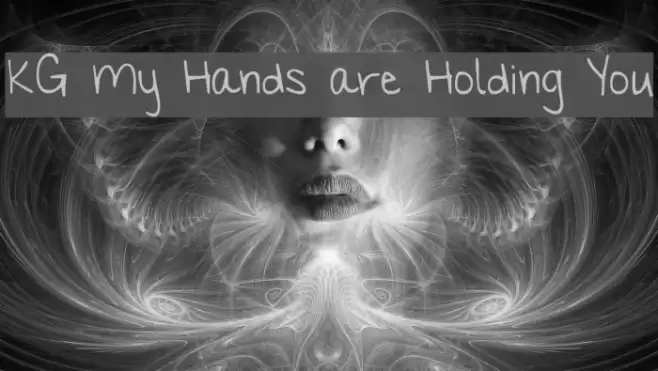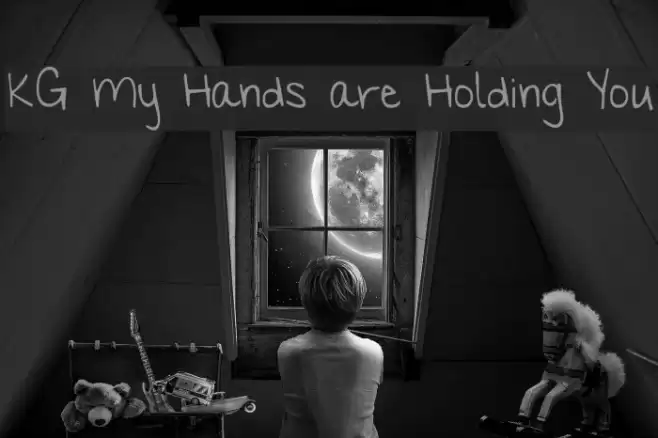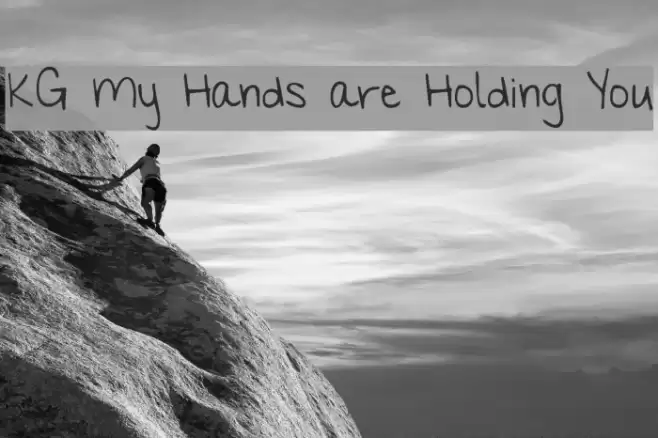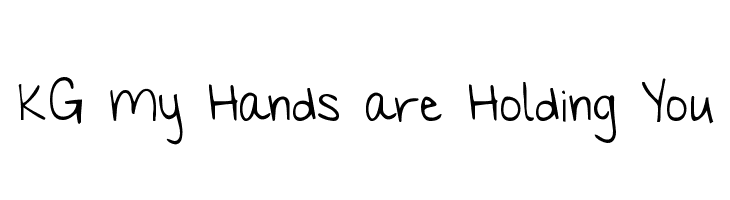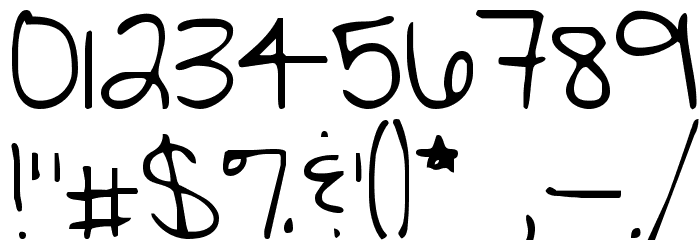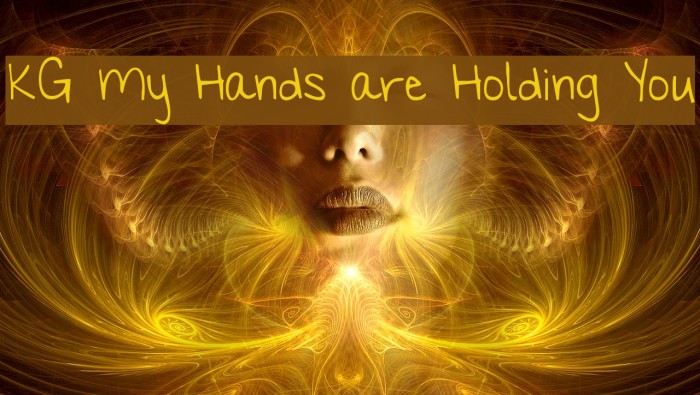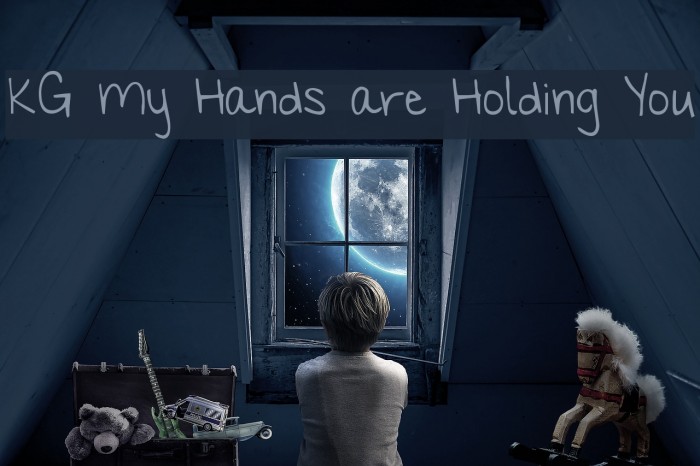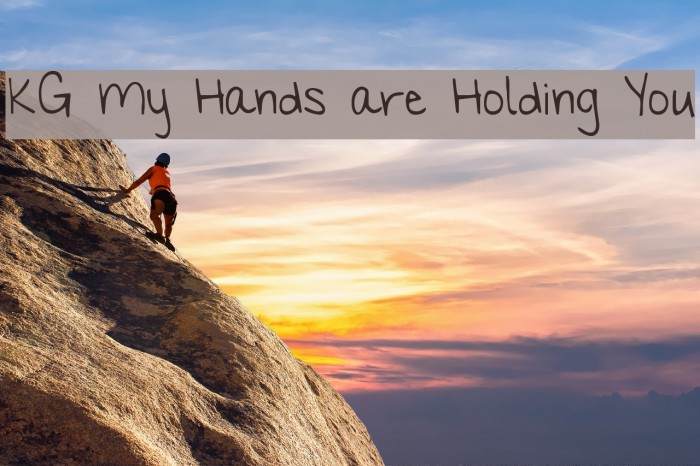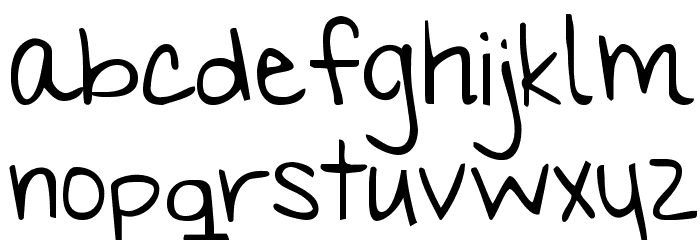
KG My Hands are Holding You Font
KG My Hands are Holding You Description
This font exudes a playful and informal charm, characterized by its handwritten style that mimics the look of casual penmanship. The letters are slightly irregular, adding a personal touch that feels both approachable and friendly. The strokes are smooth and consistent, with rounded edges that enhance its whimsical nature. The font maintains a consistent baseline, though the varying heights of the characters contribute to its dynamic appearance. It includes a full set of uppercase and lowercase letters, numerals, and a variety of special characters, making it versatile for different uses. The overall look is reminiscent of a child's handwriting, making it ideal for projects that require a touch of innocence and creativity.
A playful, handwritten font with a casual and friendly style from Uncategorized fonts.
- Proposed Projects: Ideal for children's books, greeting cards, educational materials, and playful branding.
- Overall Style: Playful
- Use Case: Headlines, Informal text, Creative projects